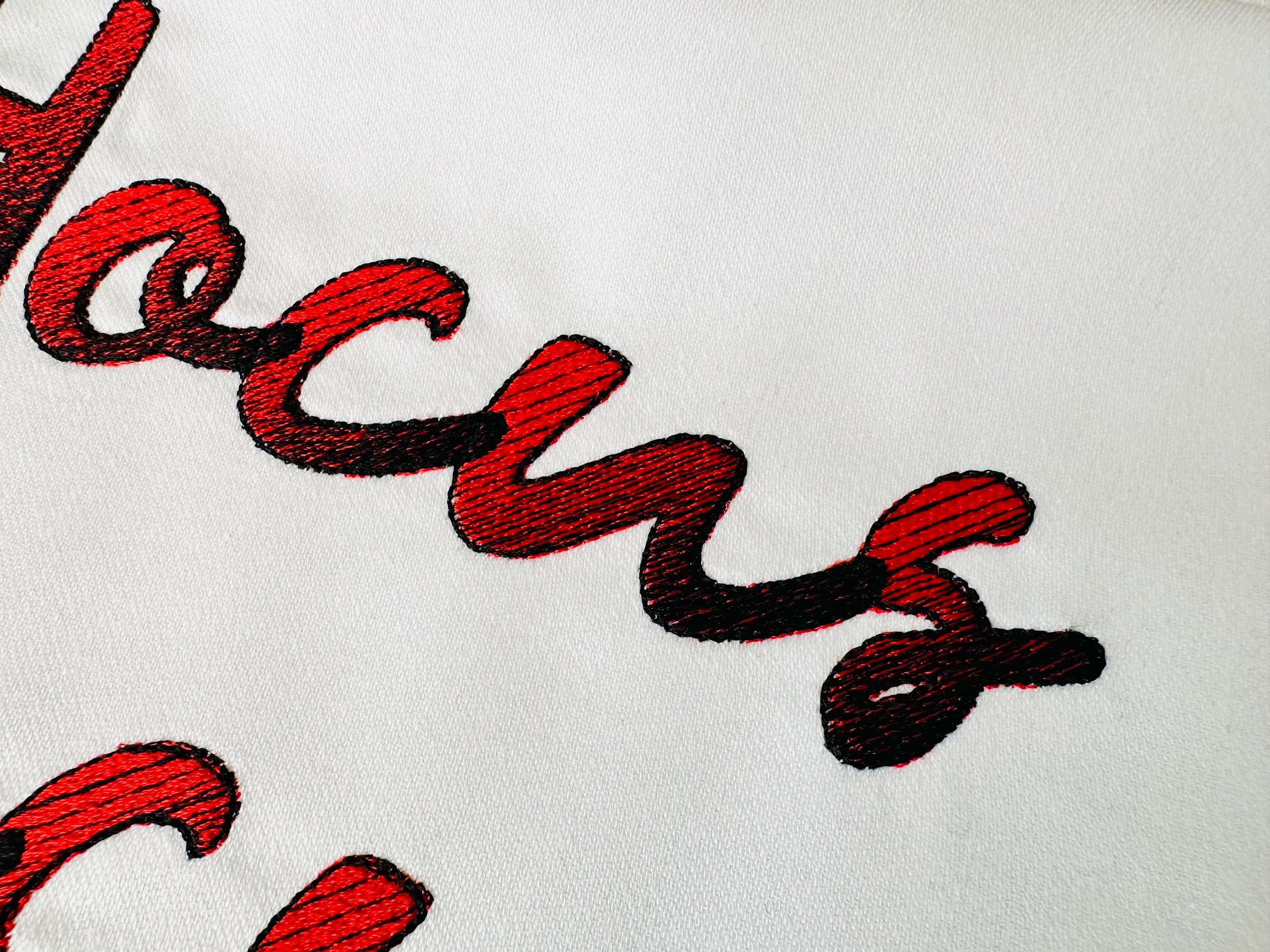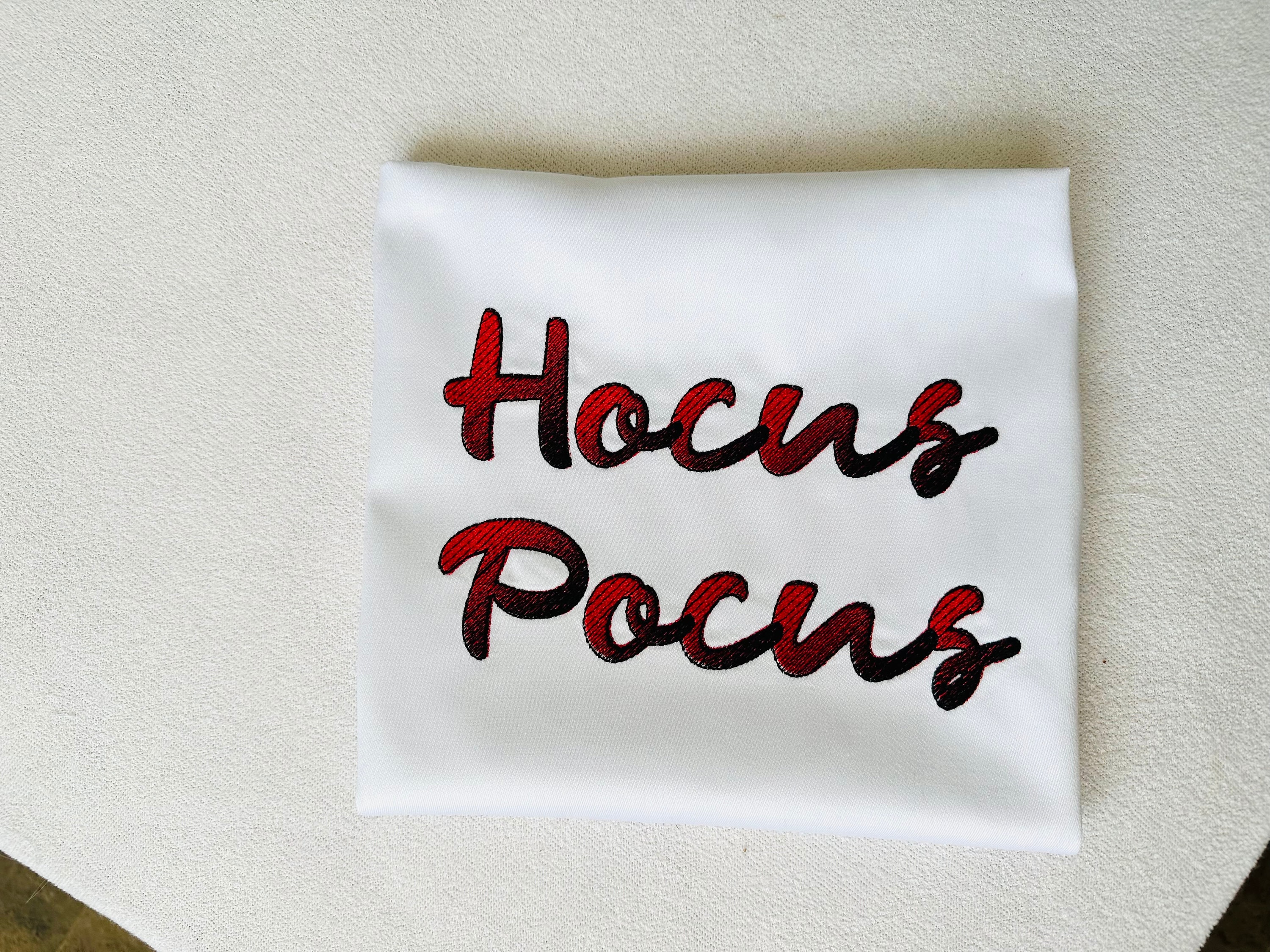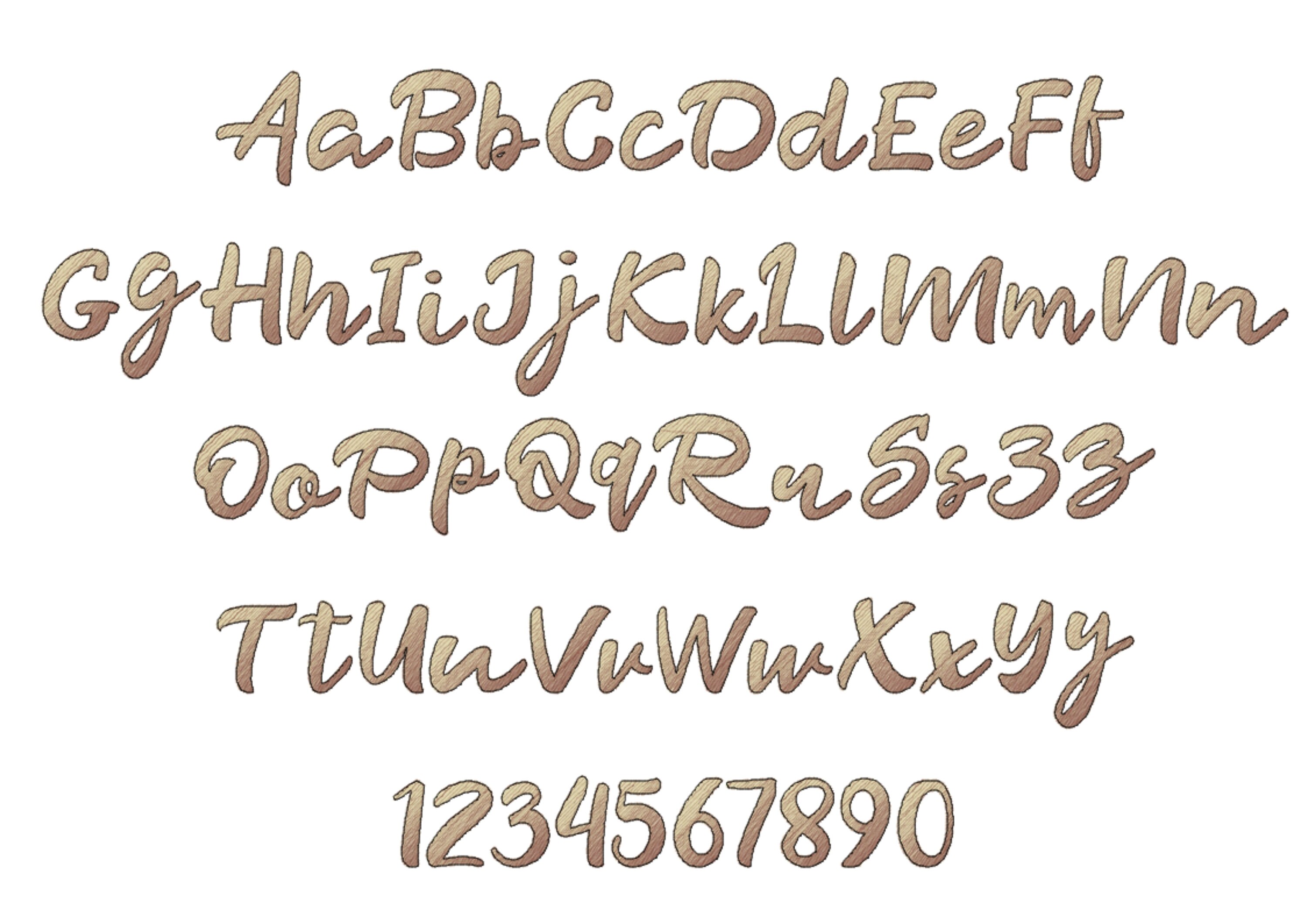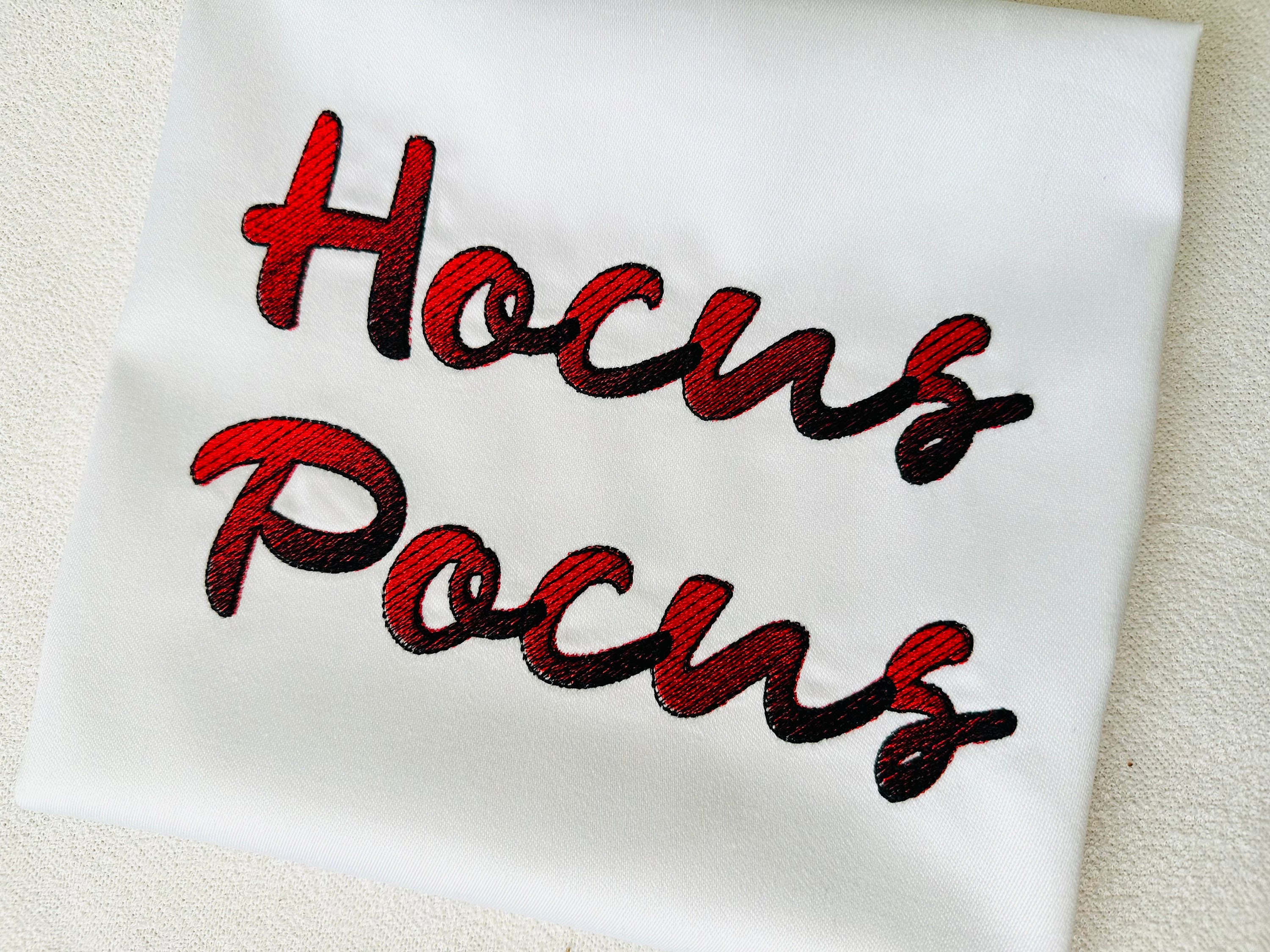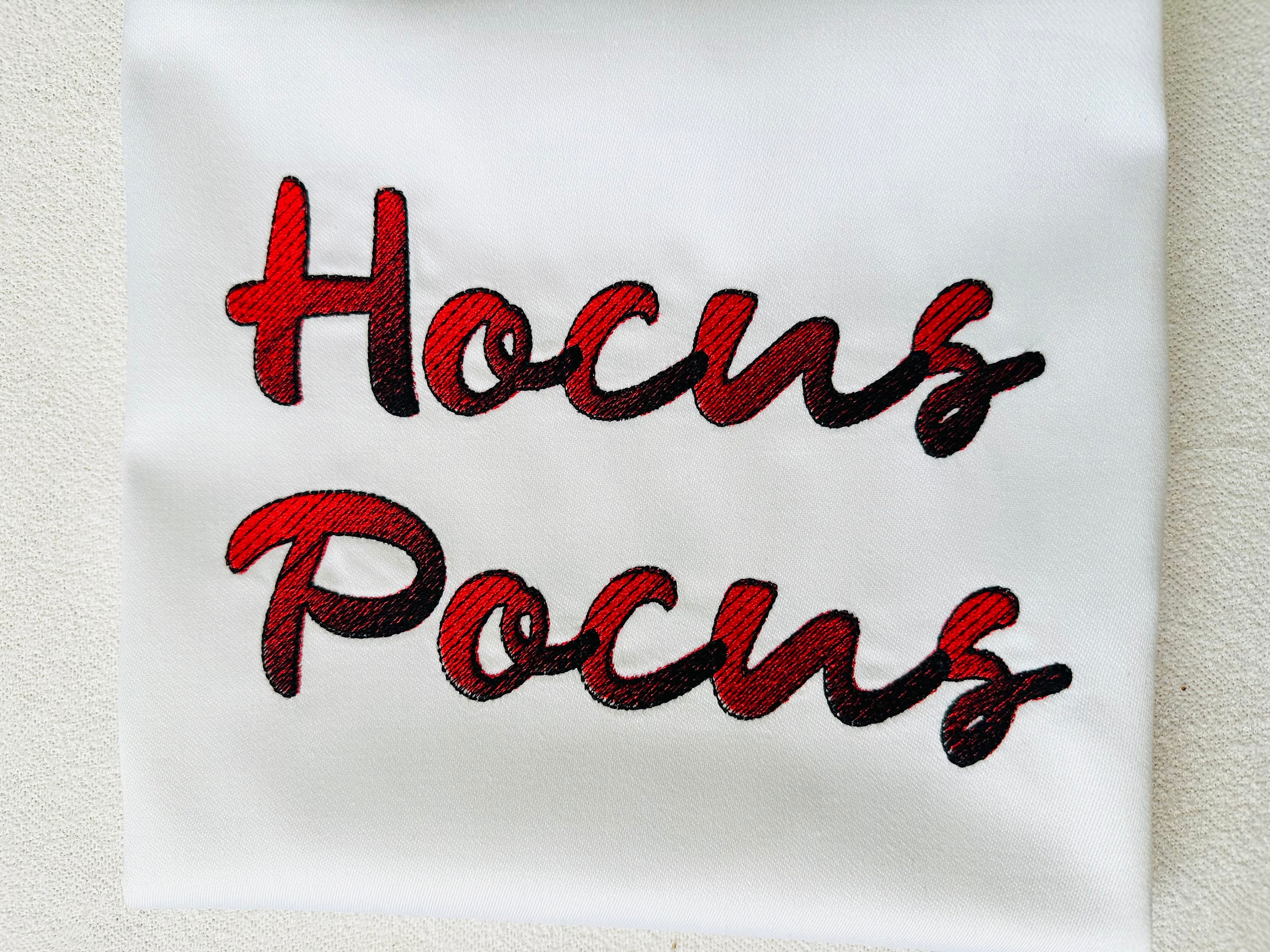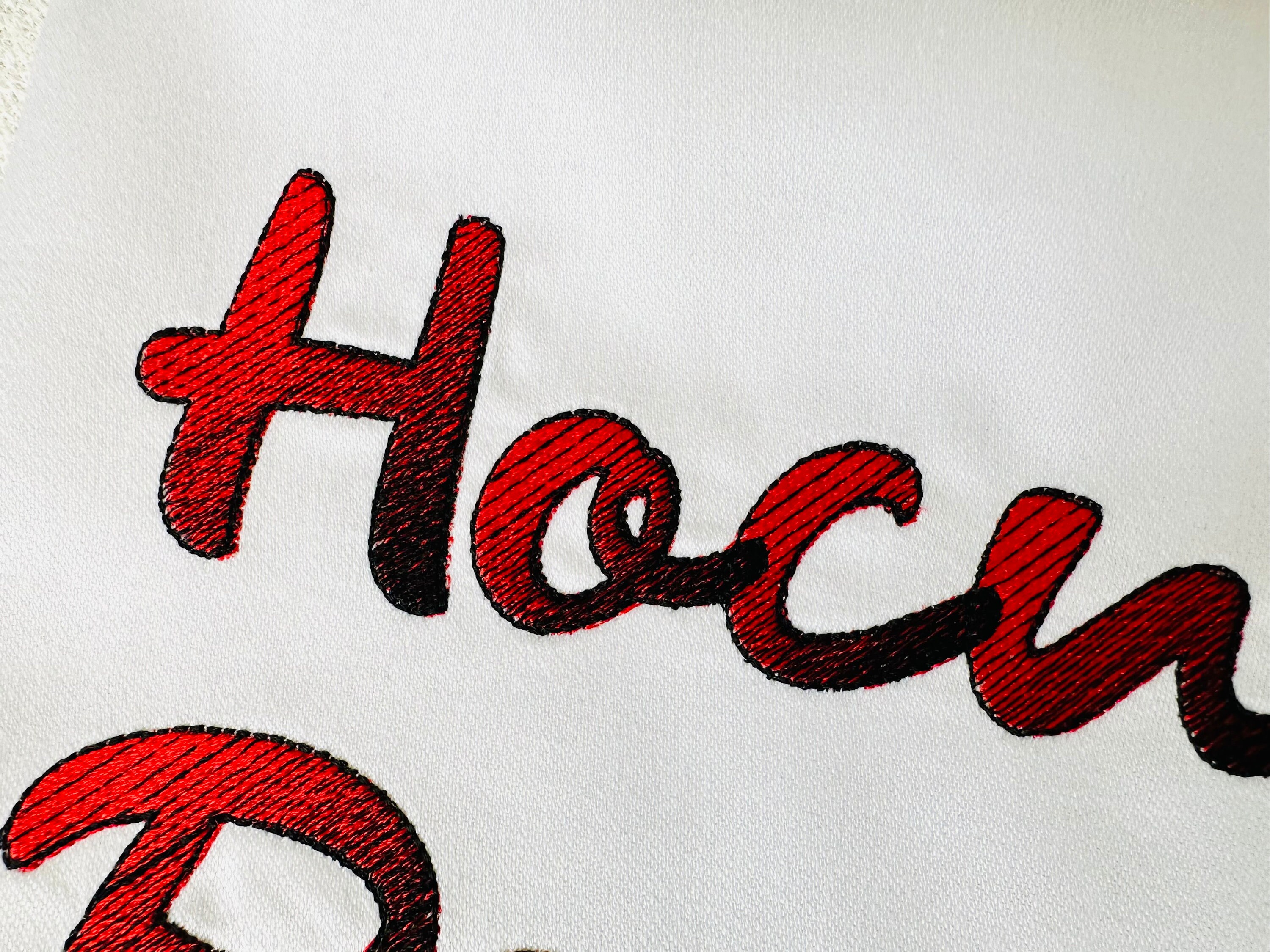
Two color Gradient Font Machine Embroidery designs alphabet with regular threads Ombre effect Monogram in many sizes, NO special thread, and BX included
Entire alphabet uppercase and lowercase letters, and numbers.
No special thread needed! Amazing iridescent effect!
The letters are stitched using regular solid color embroidery threads (not variegated).
The pattern itself creates the iridescent effect - each letter is filled with two colors. First, stitch with the initial color, then the machine will stop so you can rethread with the second color. Finally, the third color is used for the outline.